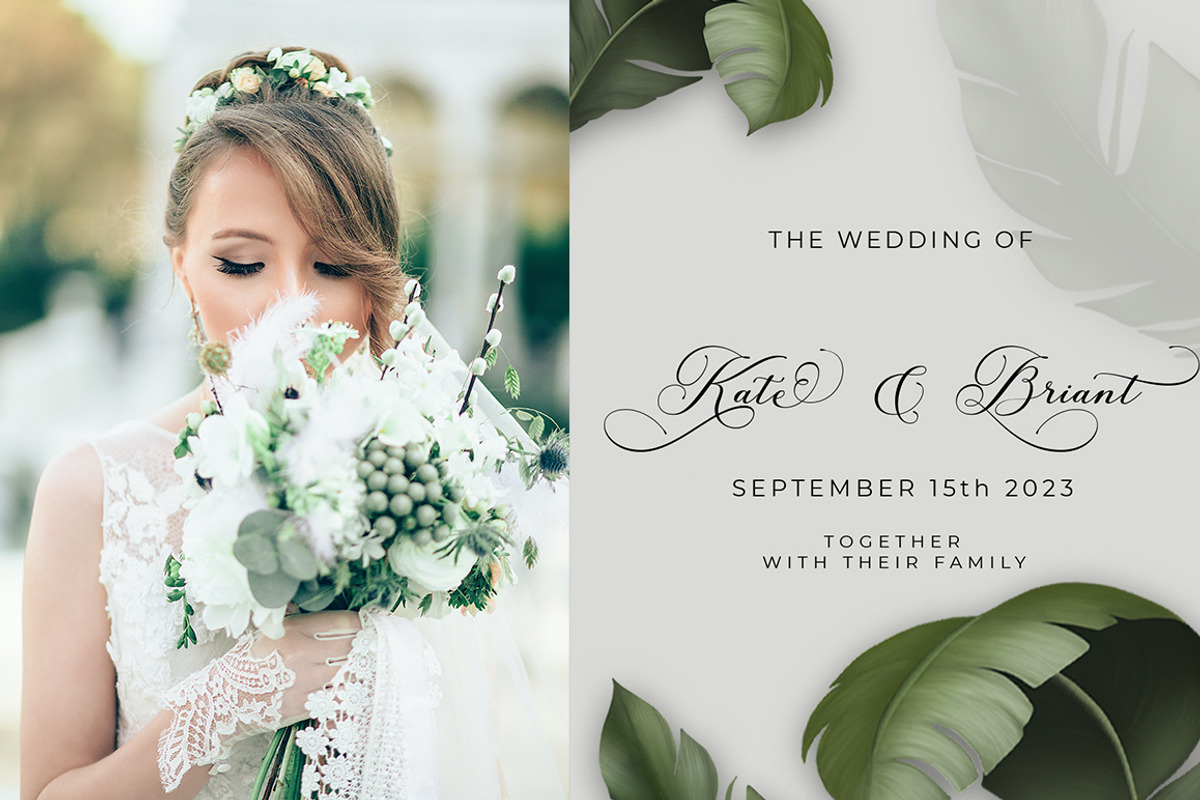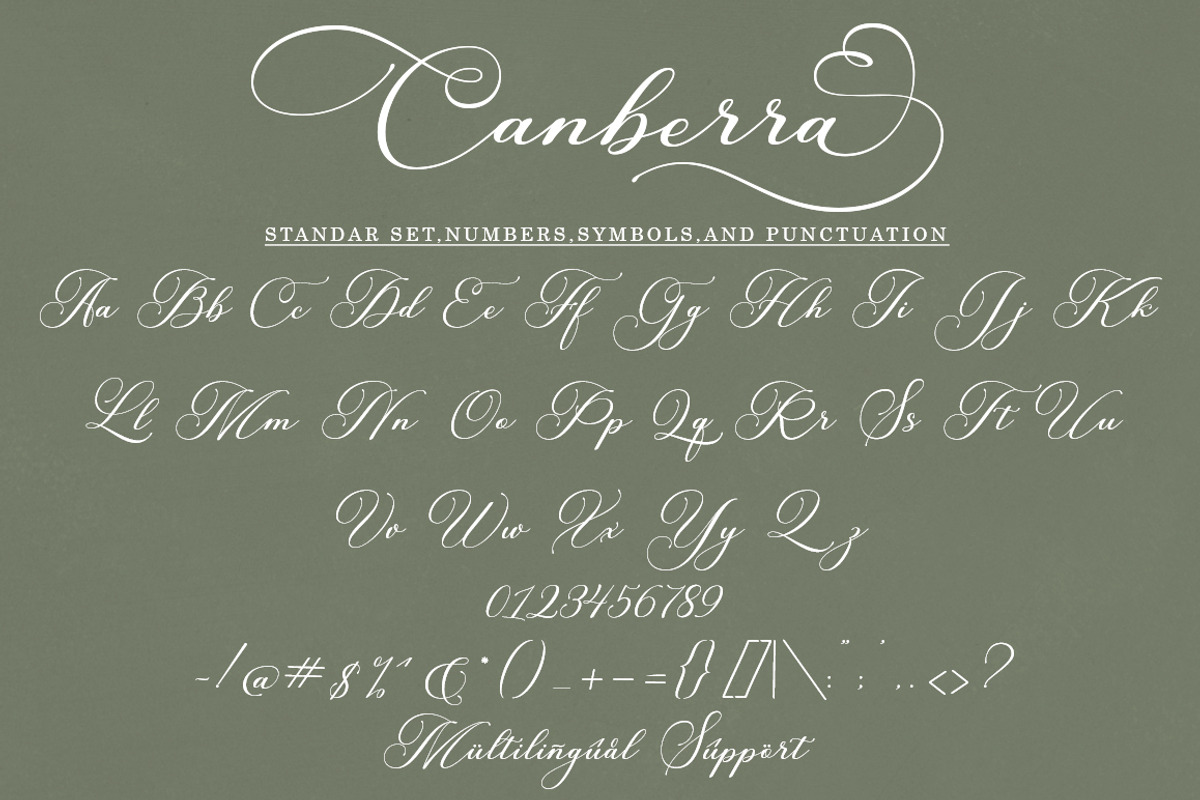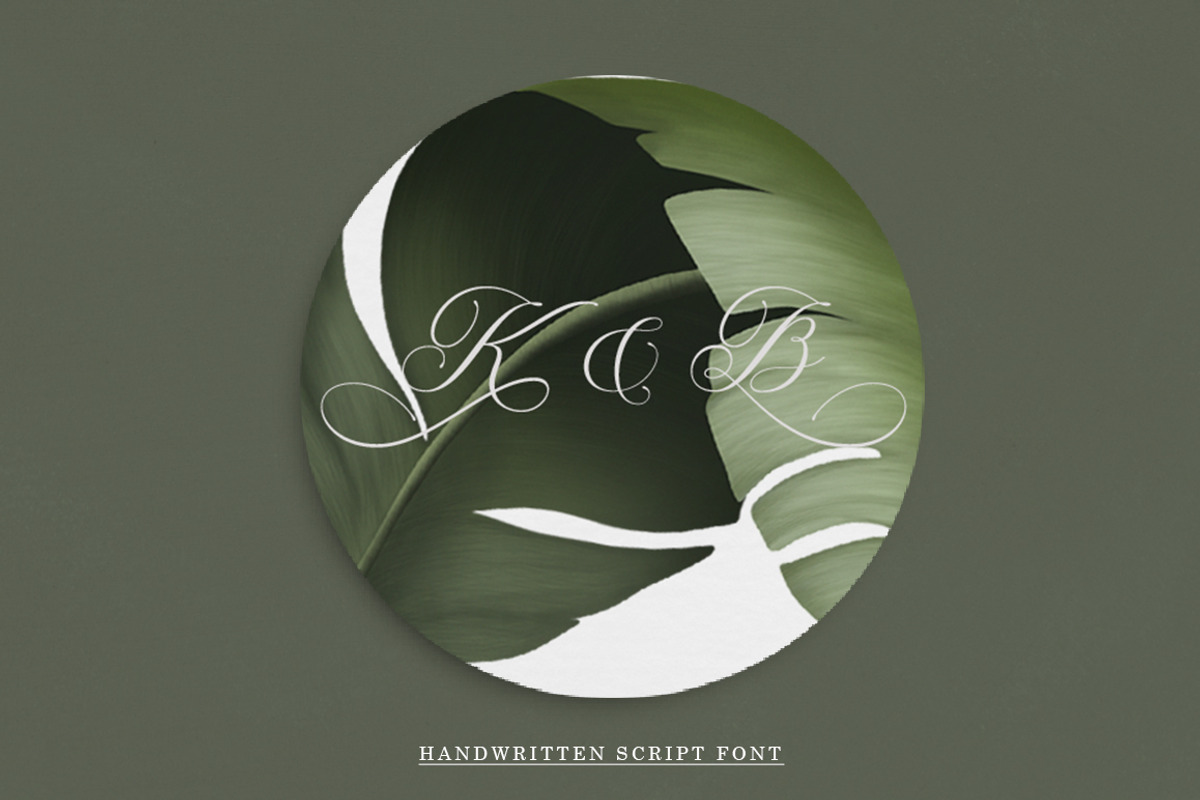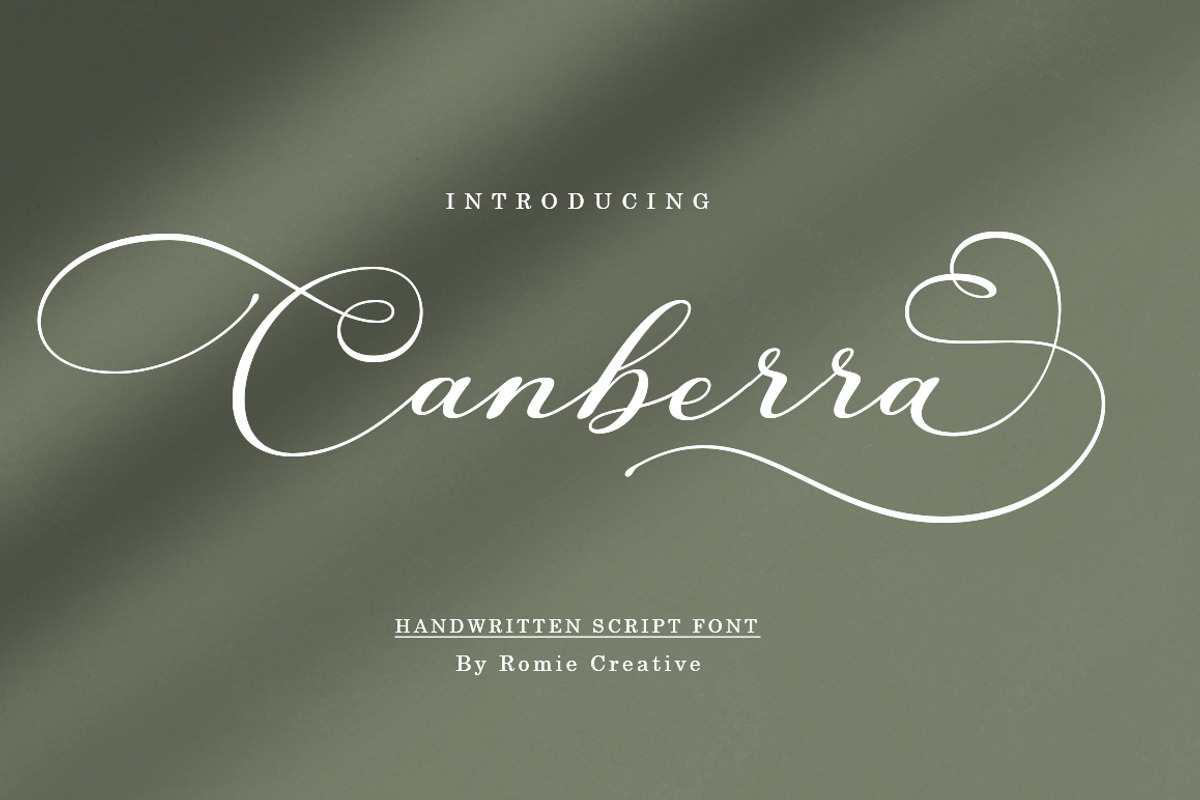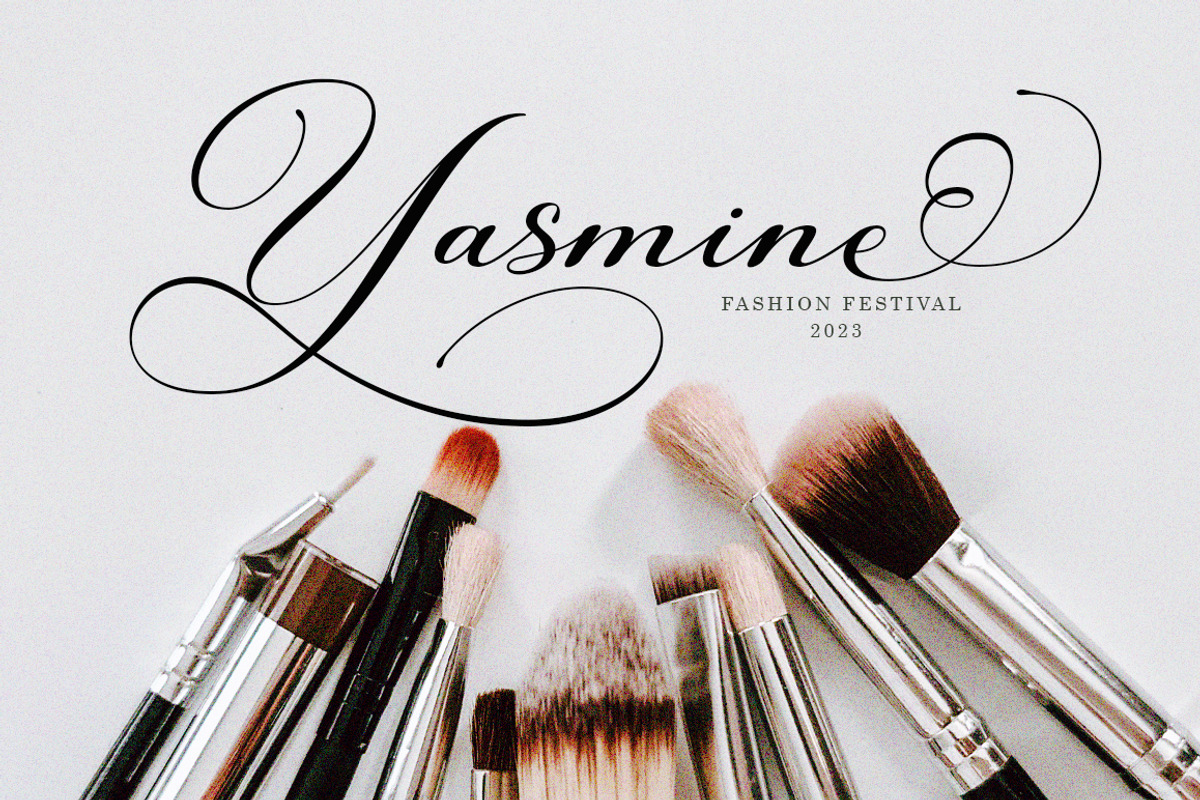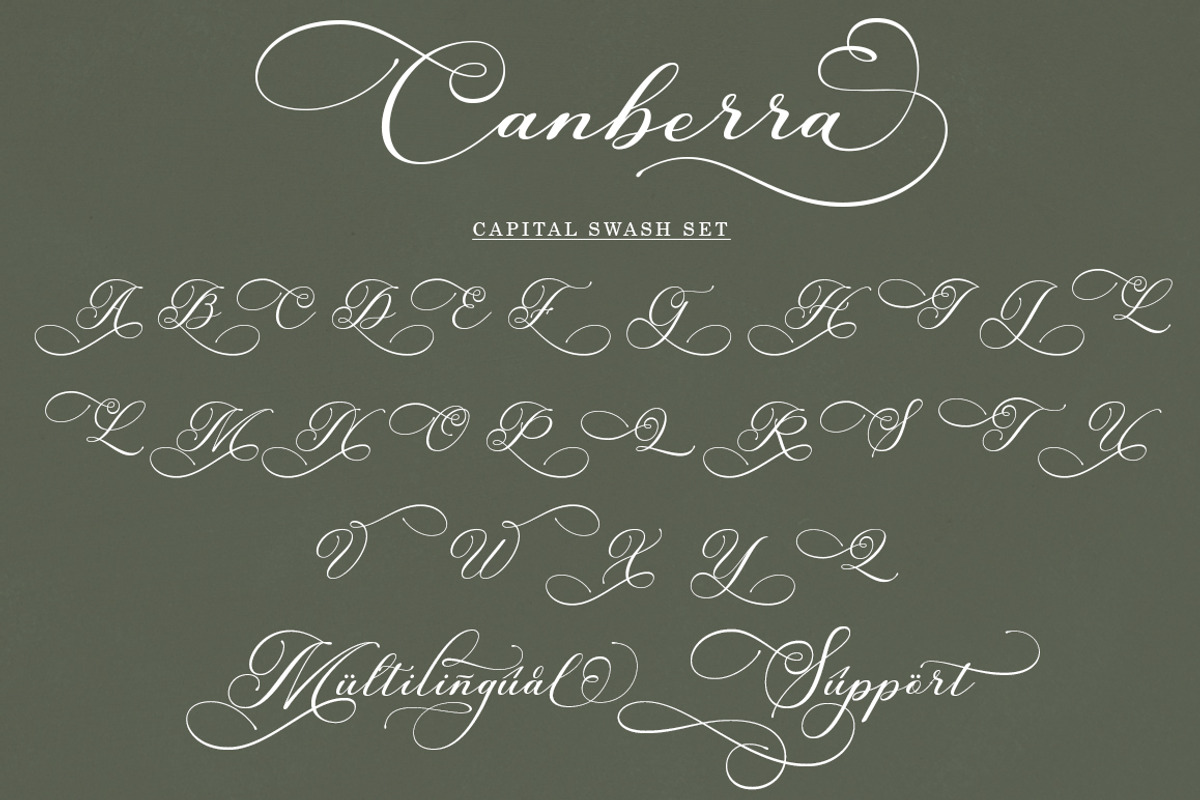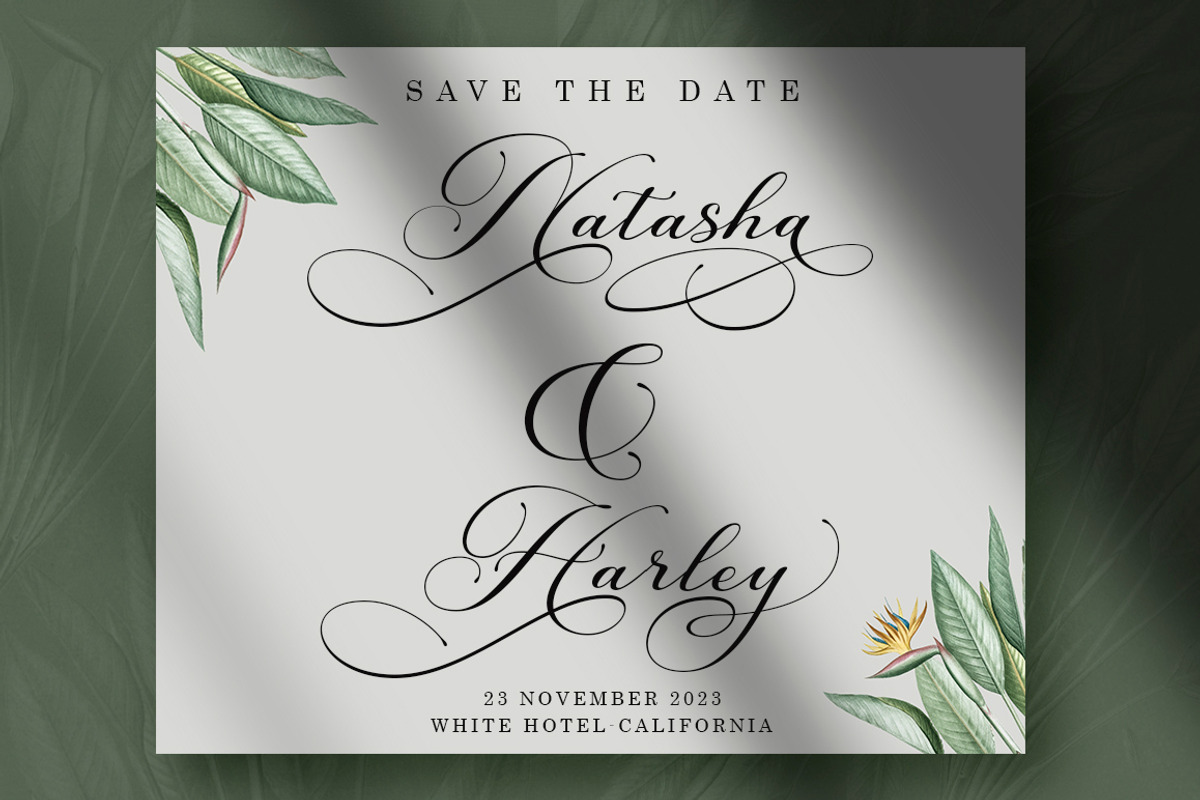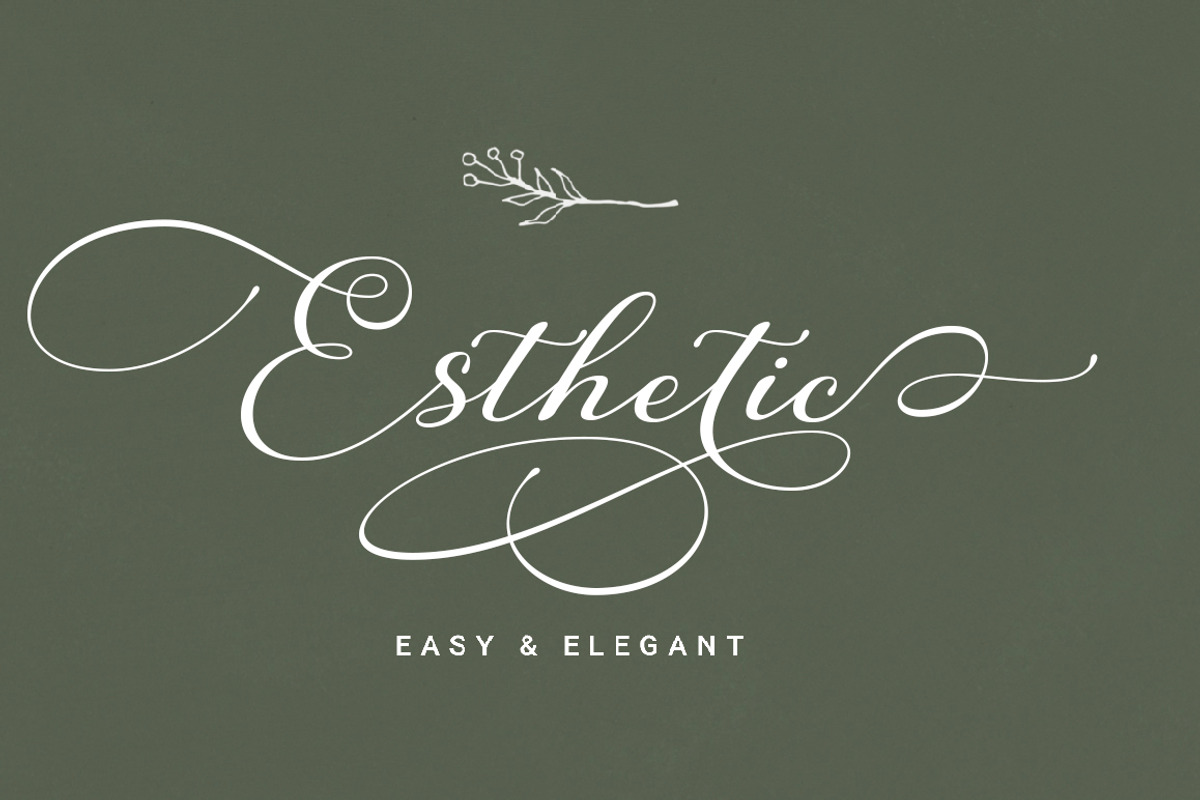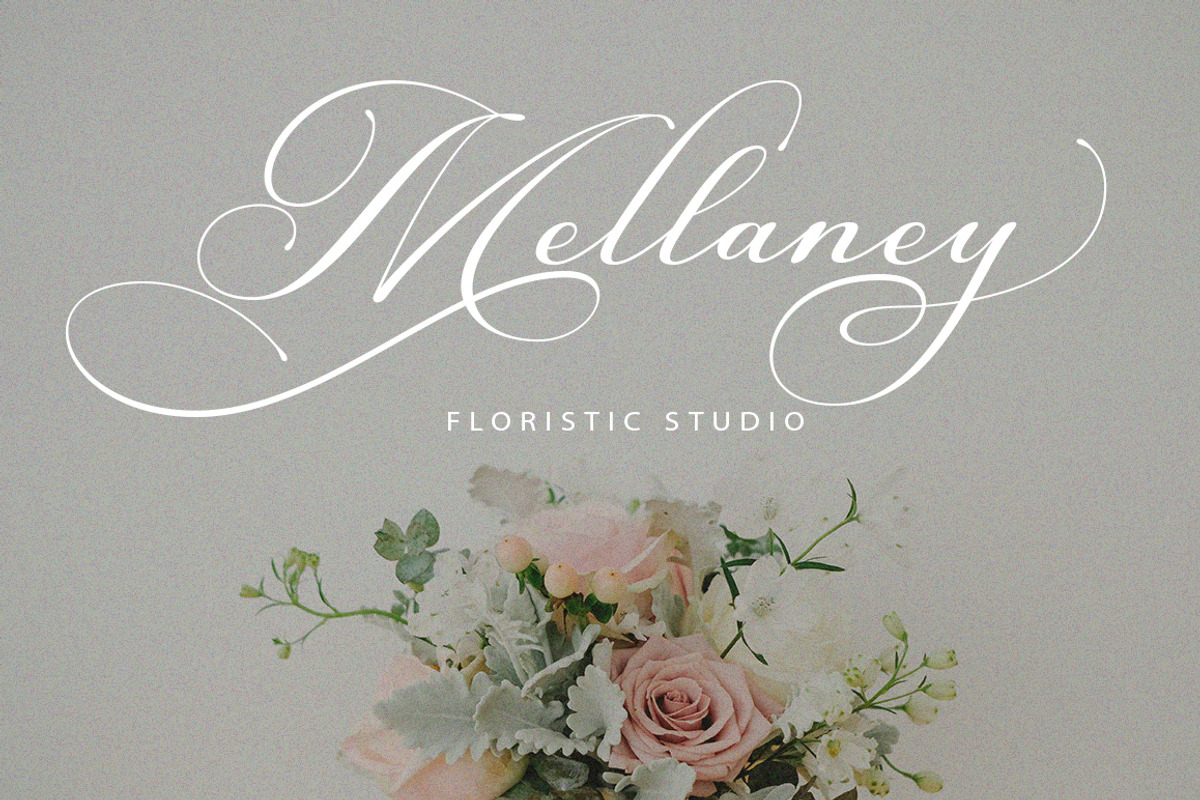
Canberra
Canberra is a classy handwritten font with distinctive curves, inside with some eye-catching features that are perfect for feminine-style projects.
Canberra features start and end engraved in upper and lower case, very beautiful ligatures and this font is perfectly qualified when you use it for wedding design projects, fashion, greetings, invitations, social media and more.